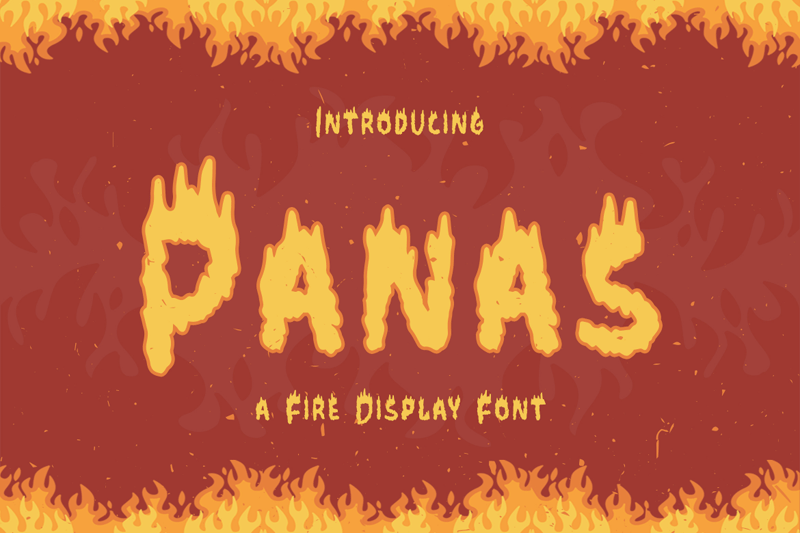
Font name: | Panas |
Categories | Fancy, Fire, Ice |
Author: | Type Factory |
Note by Type Factory | |
Panas is a fiery and fun display font that has burning feel. Panas has a fiery effect, it�s the perfect font for giving any design a fiery and burning feel, spices brand, or maybe spicy delicious food! Full Version Download Here : https://typefactory.co/product/panas-fire-display-font/ https://www.creativefabrica.com/product/panas/ref/501262/ |